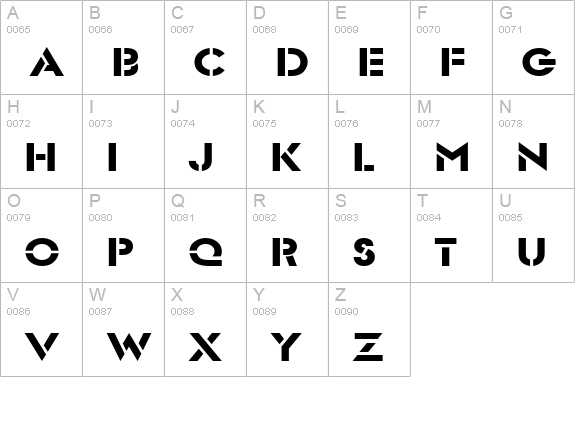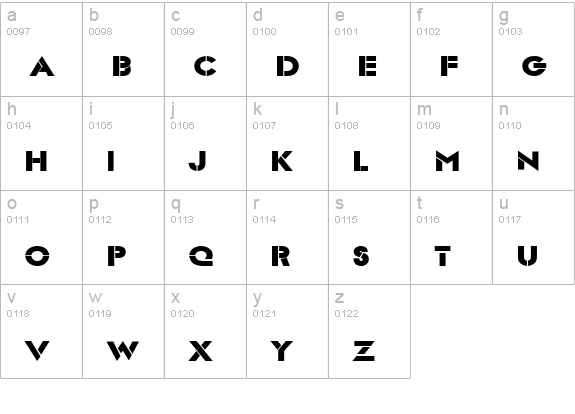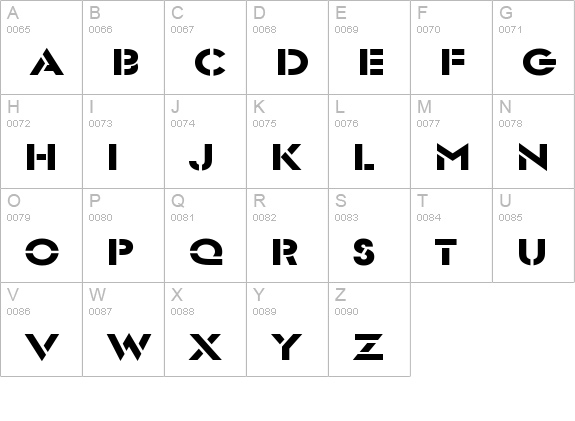
Templett Wide Bold is a strong, high-contrast, extended-width variant in the Templett typeface family \xE2\x80\x94 well suited to headlines, attention-grabbing titles, and strong calls-to-action.
Templett Wide Bold font is a stylish and contemporary typeface that exudes confidence and authority. Its bold and wide letterforms make a strong visual impact, perfect for bold headlines, attention-grabbing titles, or impactful branding materials. With its clean and modern design, Templett Wide Bold font adds a touch of sophistication to any project. Whether you're designing a logo, creating eye-catching advertisements, or crafting impressive presentations, this font will elevate your work to new heights. One of the best things about Templett Wide Bold font is that it is freely available to download at FontsMarket.com. Yes, that's right, you can get your hands on this remarkable font without spending a dime. FontsMarket.com offers a wide range of high-quality fonts, and Templett Wide Bold is no exception. By downloading Templett Wide Bold font for free, you not only save money but also gain access to a versatile and powerful typeface that will enhance your design projects. Its wide character set includes uppercase and lowercase letters, numbers, punctuation marks, and special symbols, ensuring that you have everything you need to create stunning visuals. So go ahead and download Templett Wide Bold font for free at FontsMarket.com. Add a touch of boldness and elegance to your designs with this exceptional typeface. Whether you're a professional graphic designer or a creative enthusiast, this font is a must-have in your collection. Trust us, you won't regret it.